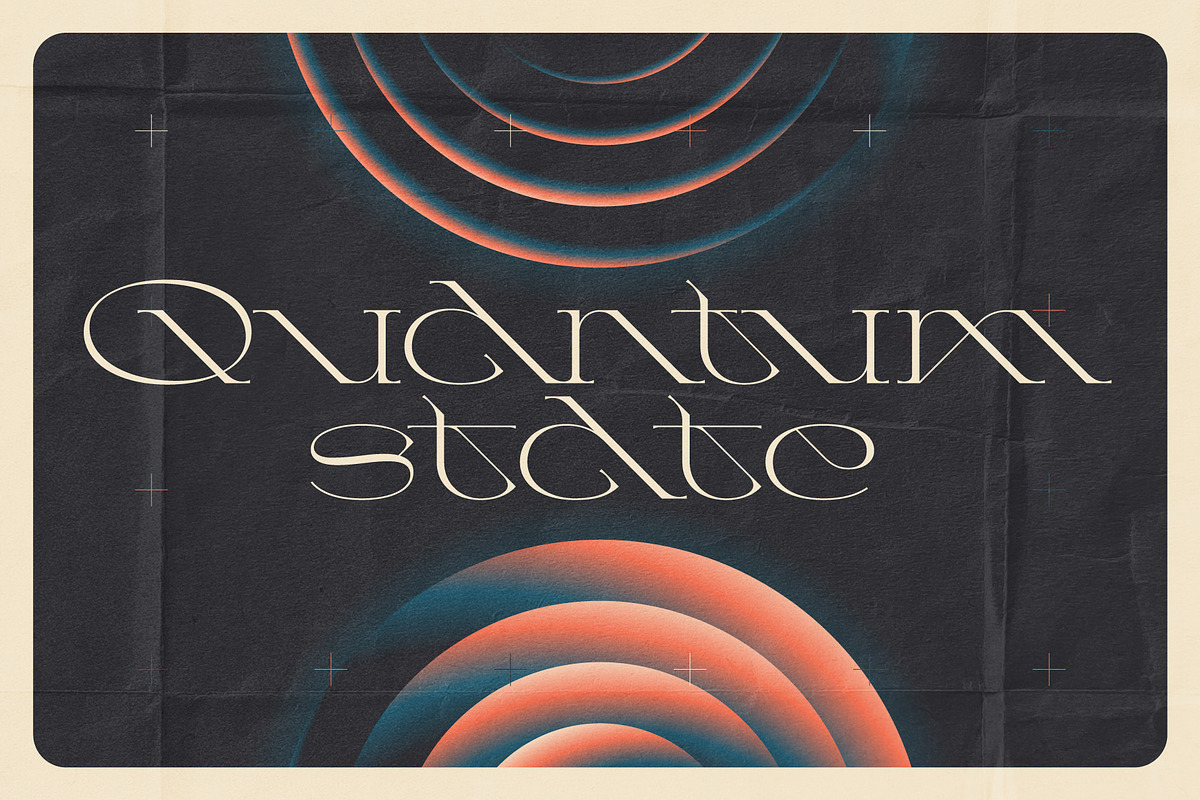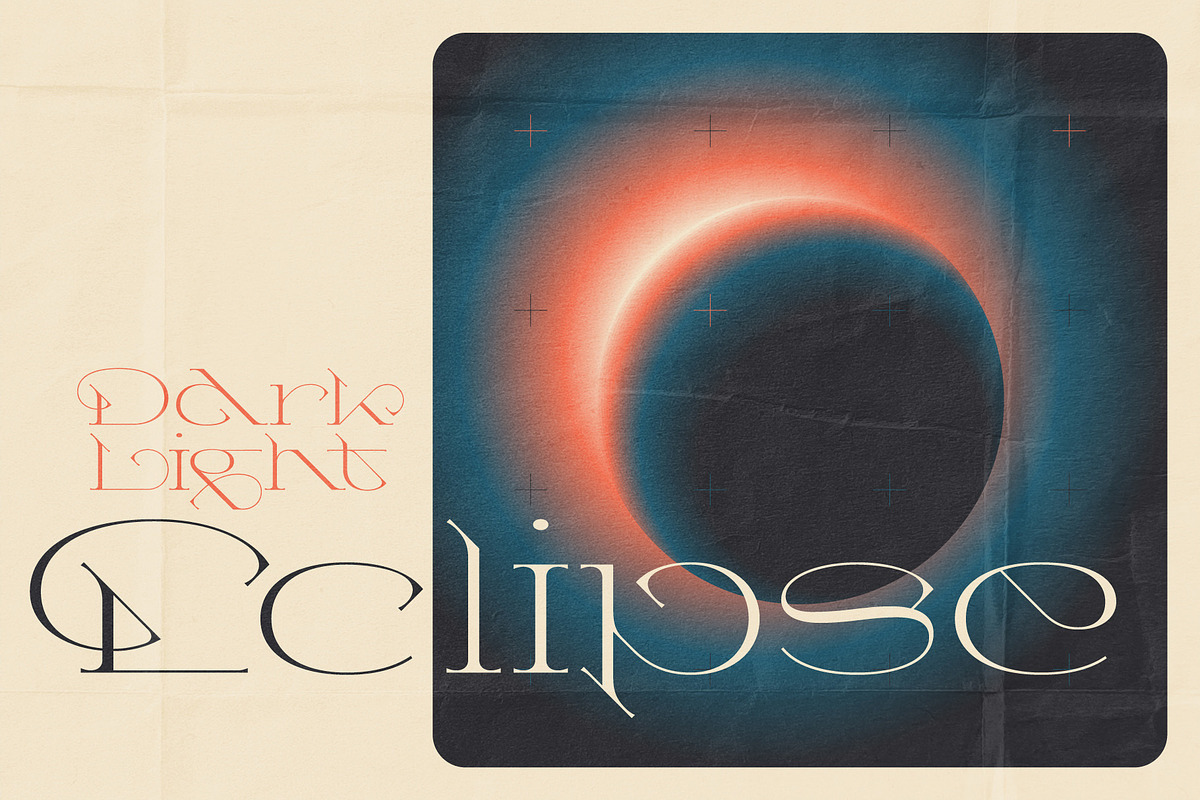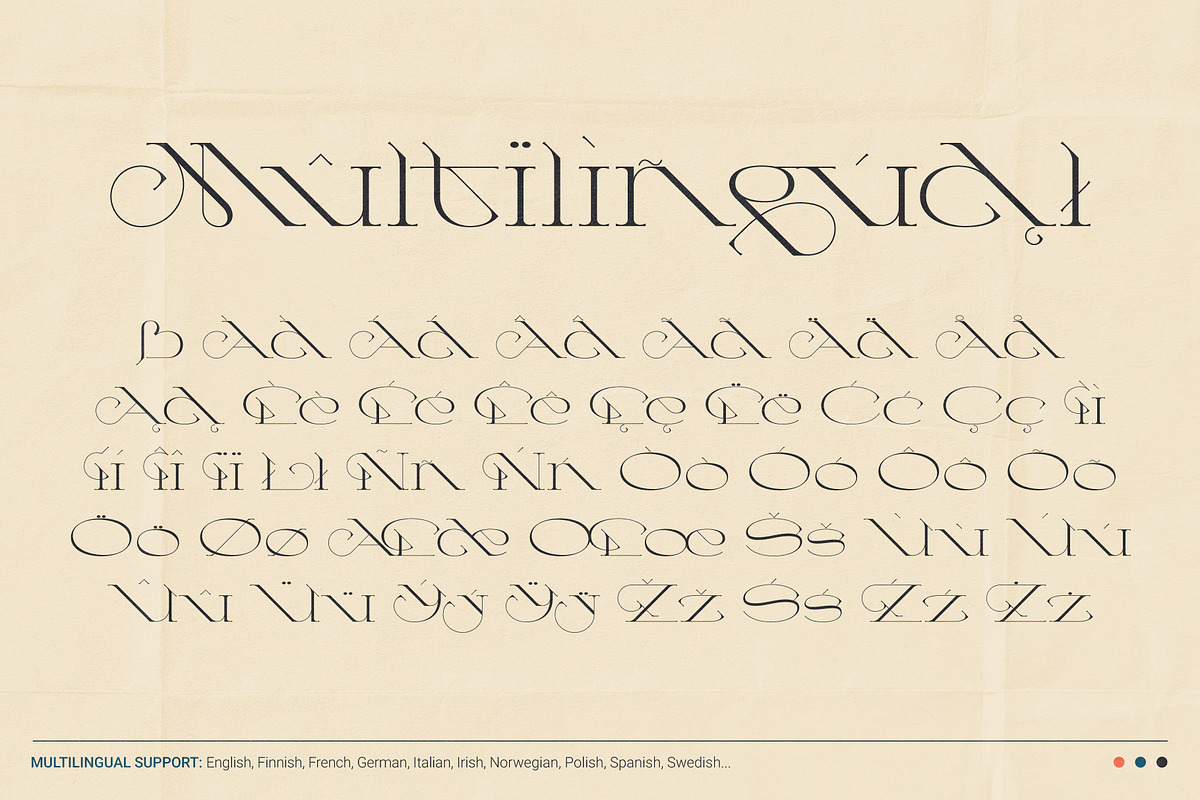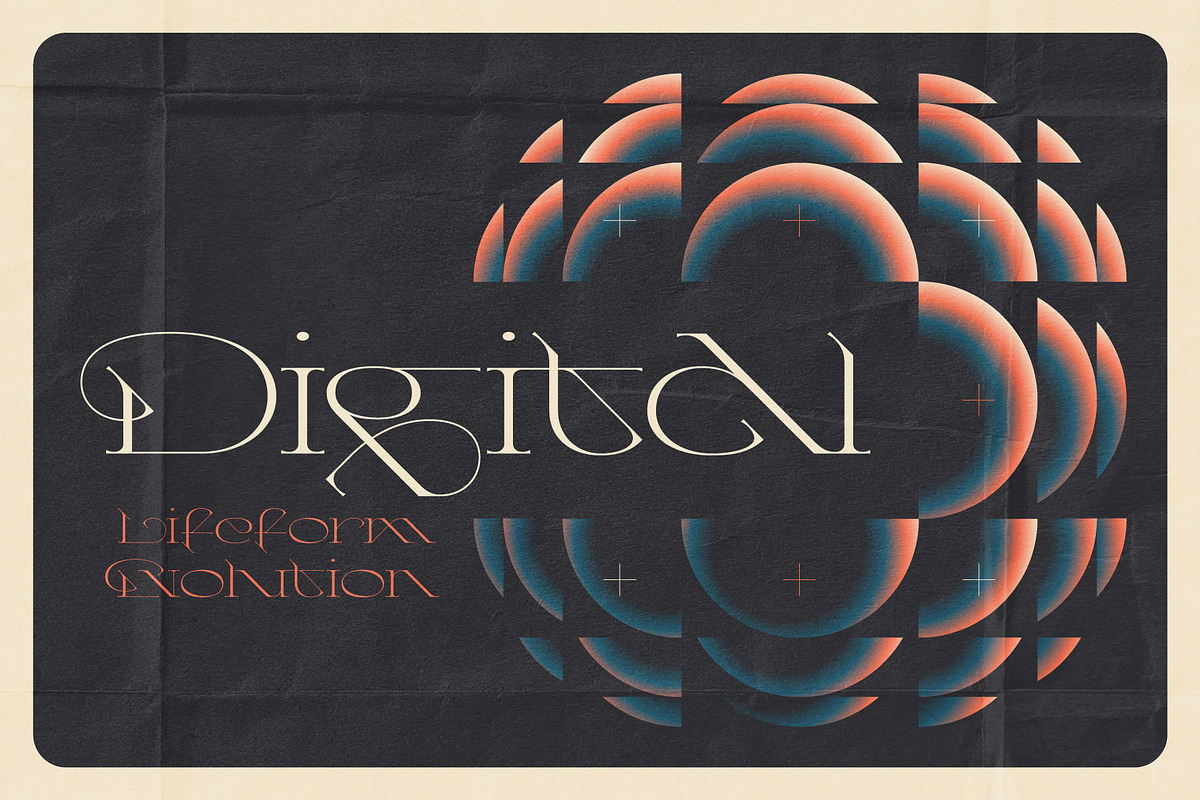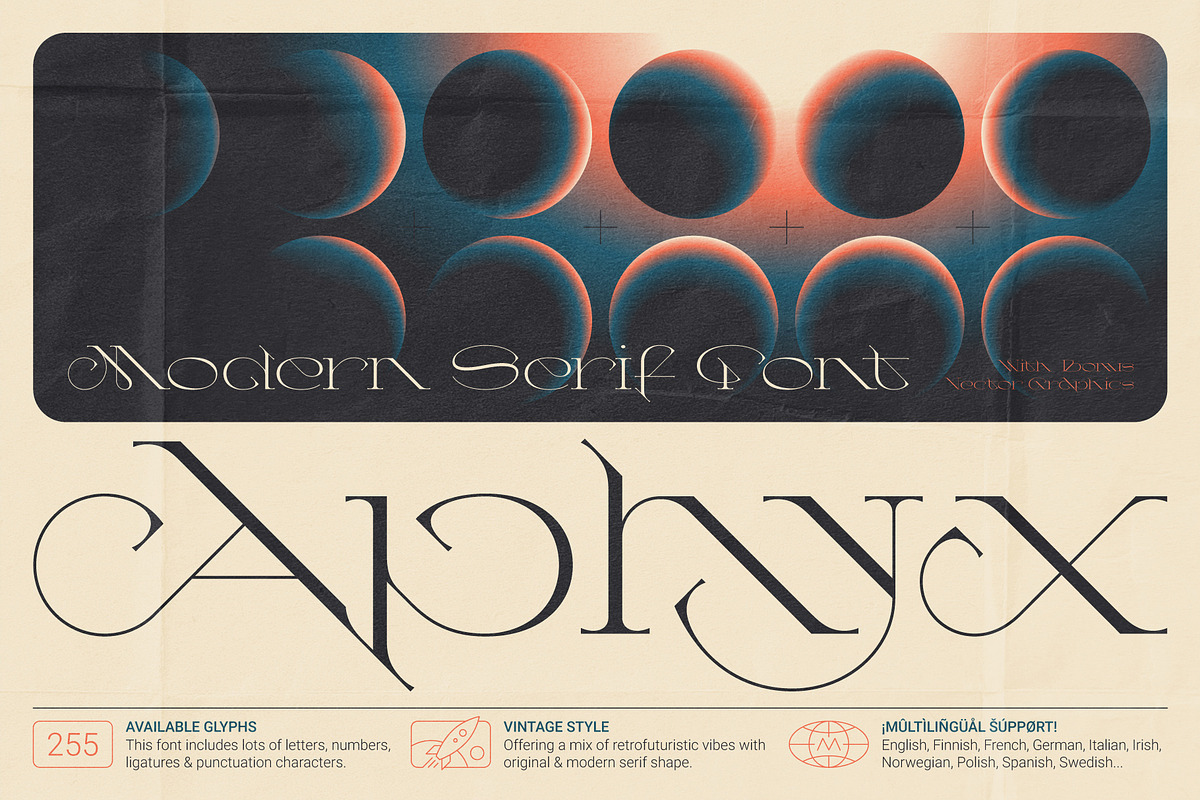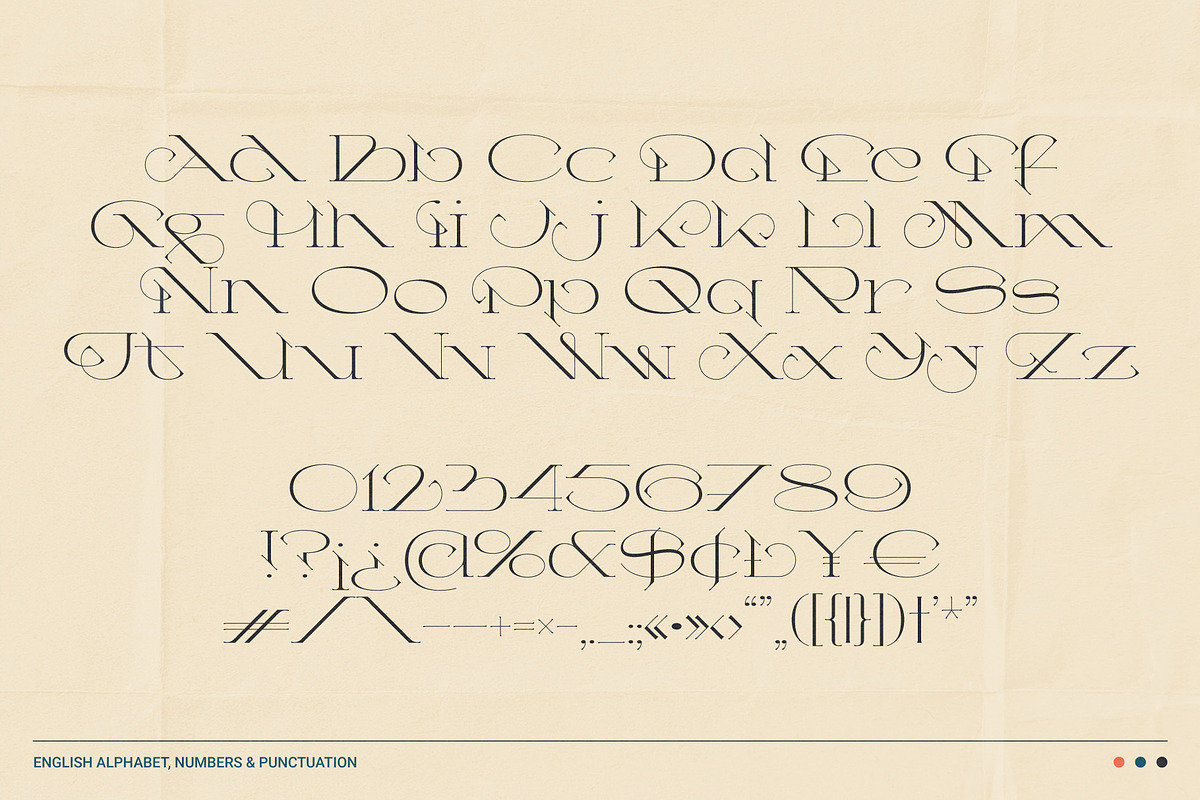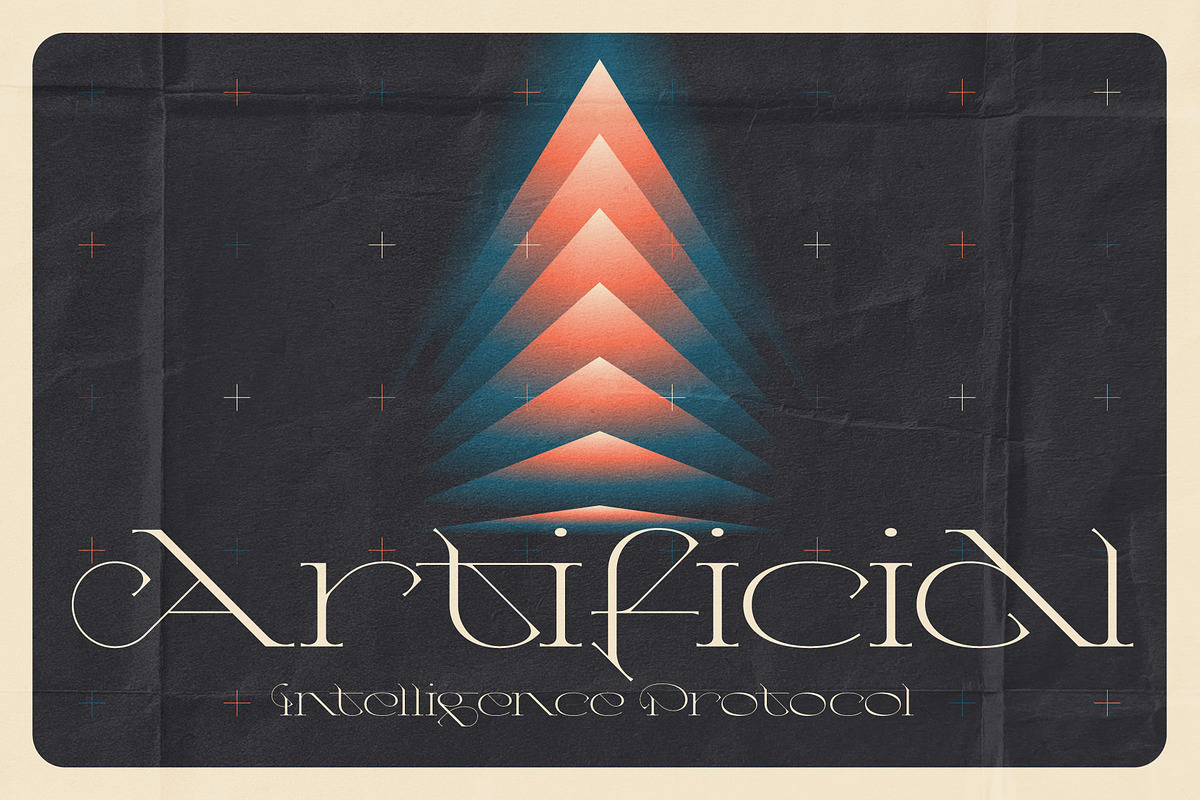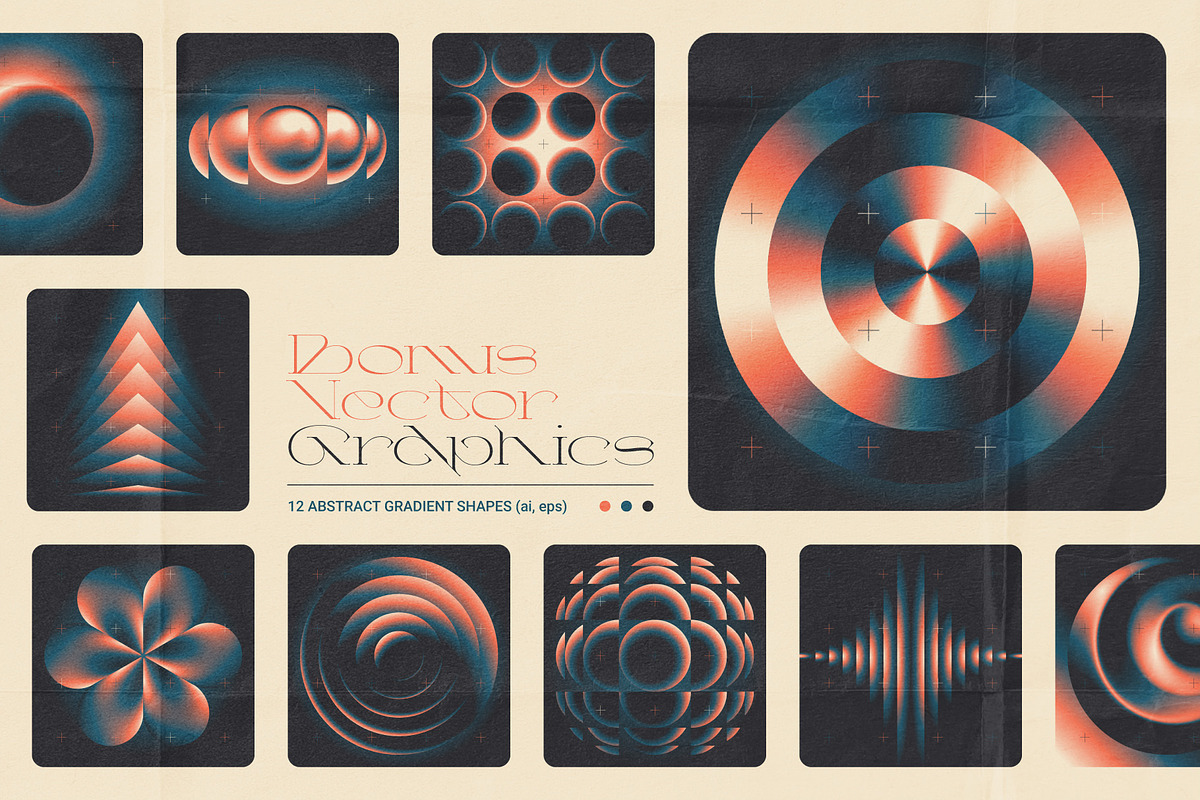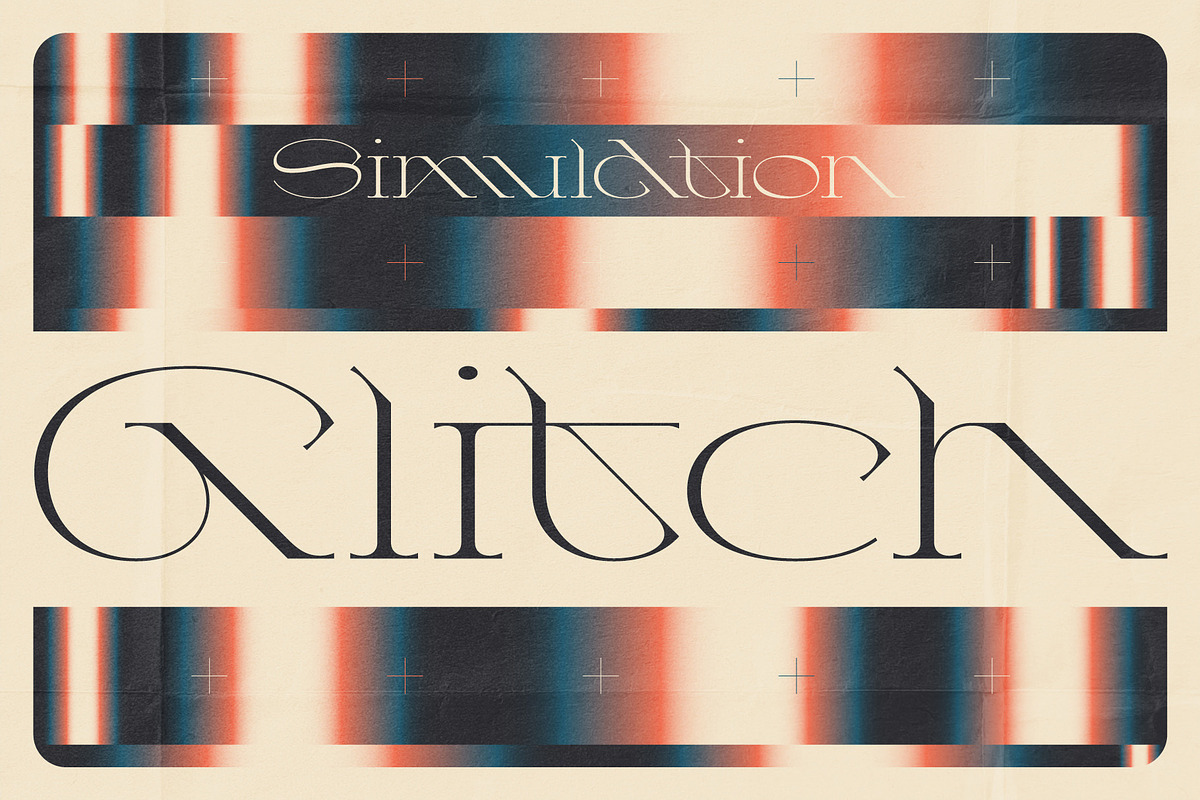
Aphyx - Modern Serif Font
Introducing Aphyx, a modern serif font with original shapes. It features a unique blend of vintage Y2K vibes and authentic modern design. Whether you are designing a high-end fashion magazine or a bold branding project, this typeface adds a sophisticated yet nostalgic touch to any layout.
The Aphyx font includes a wide set of characters, such as ligatures, alternates, and multilingual support. Check out the screenshots to see the full character set.